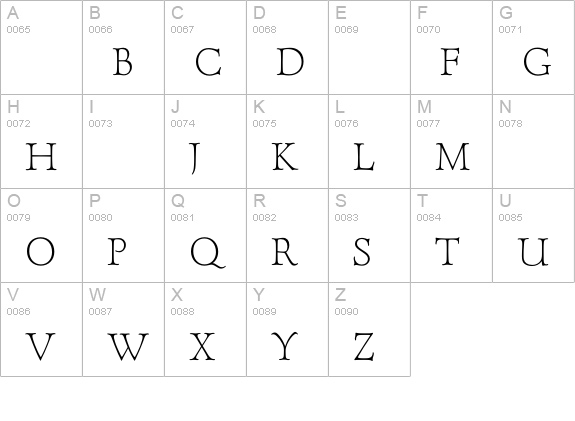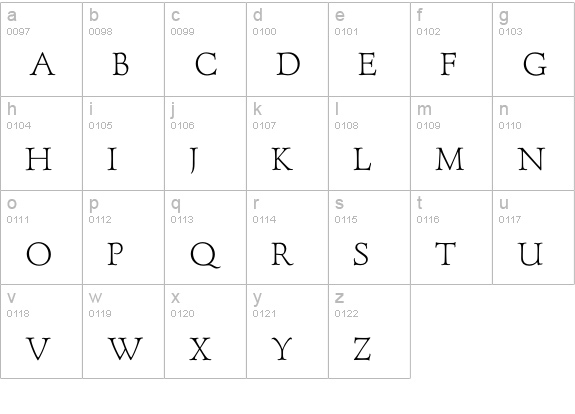
ForumTitlingLight Font Details
ForumTitlingLight font is a sleek and modern typeface designed for creating eye-catching titles and headers. With its clean lines and elegant curves, this font exudes sophistication and professionalism. Perfect for a wide range of design projects, from websites to posters to branding materials, ForumTitlingLight adds a touch of refinement to any text. Best of all, ForumTitlingLight is available for free download at FontsMarket.com. Whether you're a seasoned designer looking for a new font to add to your collection or a beginner searching for the perfect typeface for your project, ForumTitlingLight is a versatile and stylish option that won't cost you a penny. Download it today and elevate your designs with this stunning font!